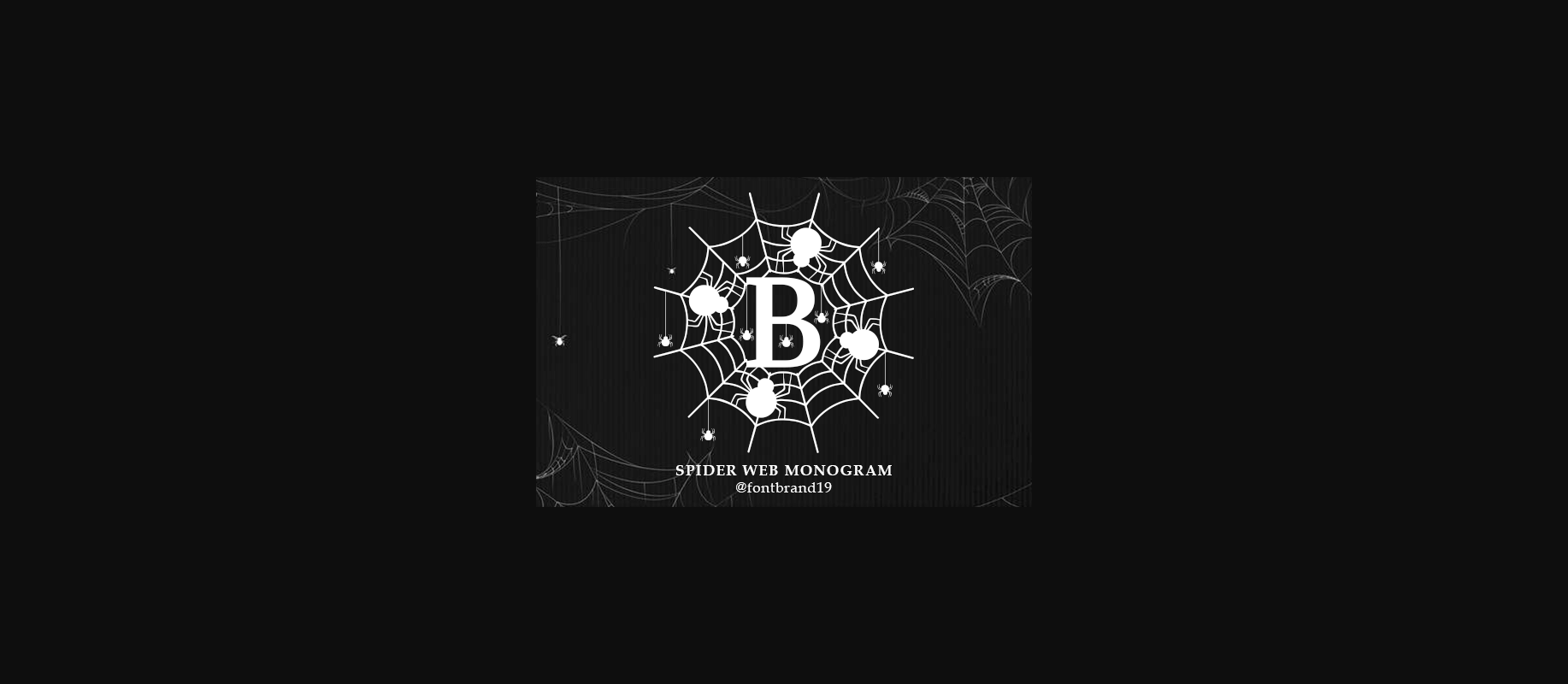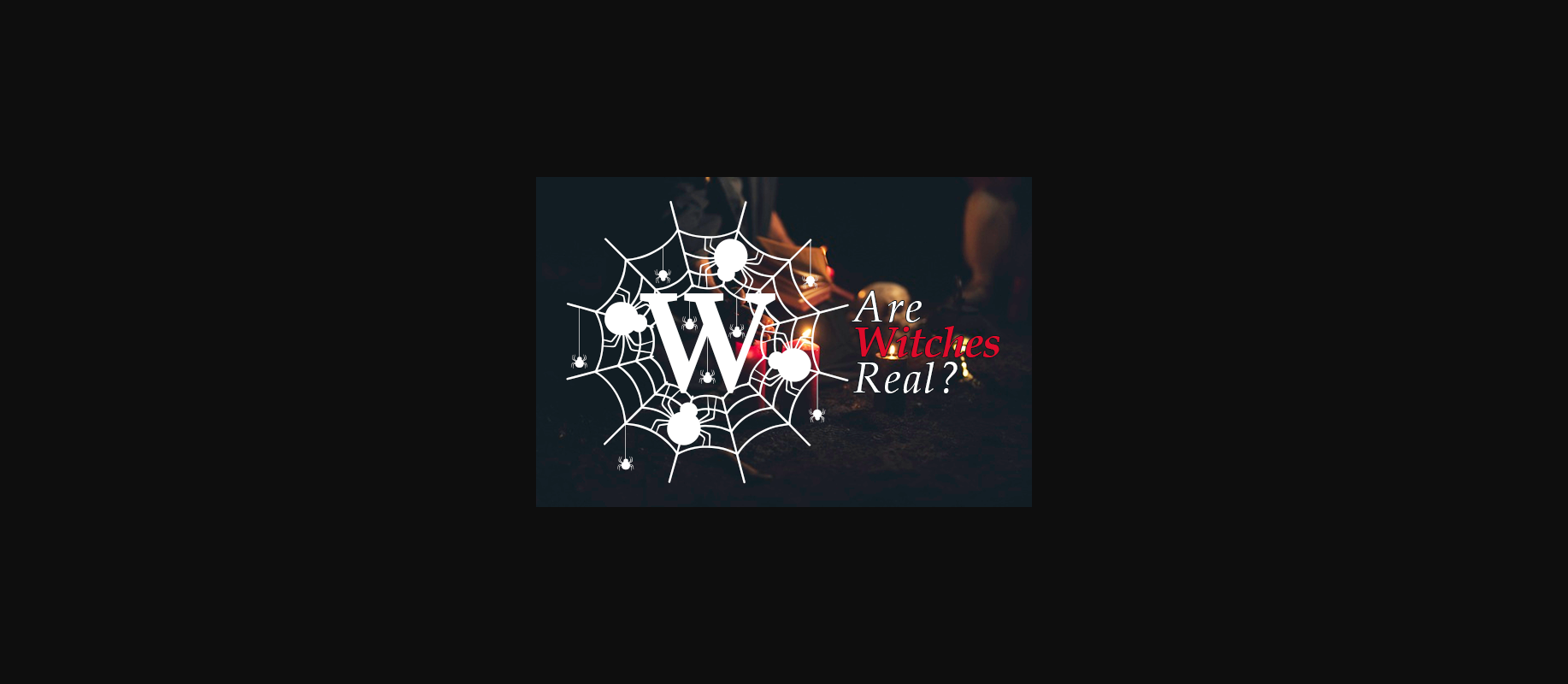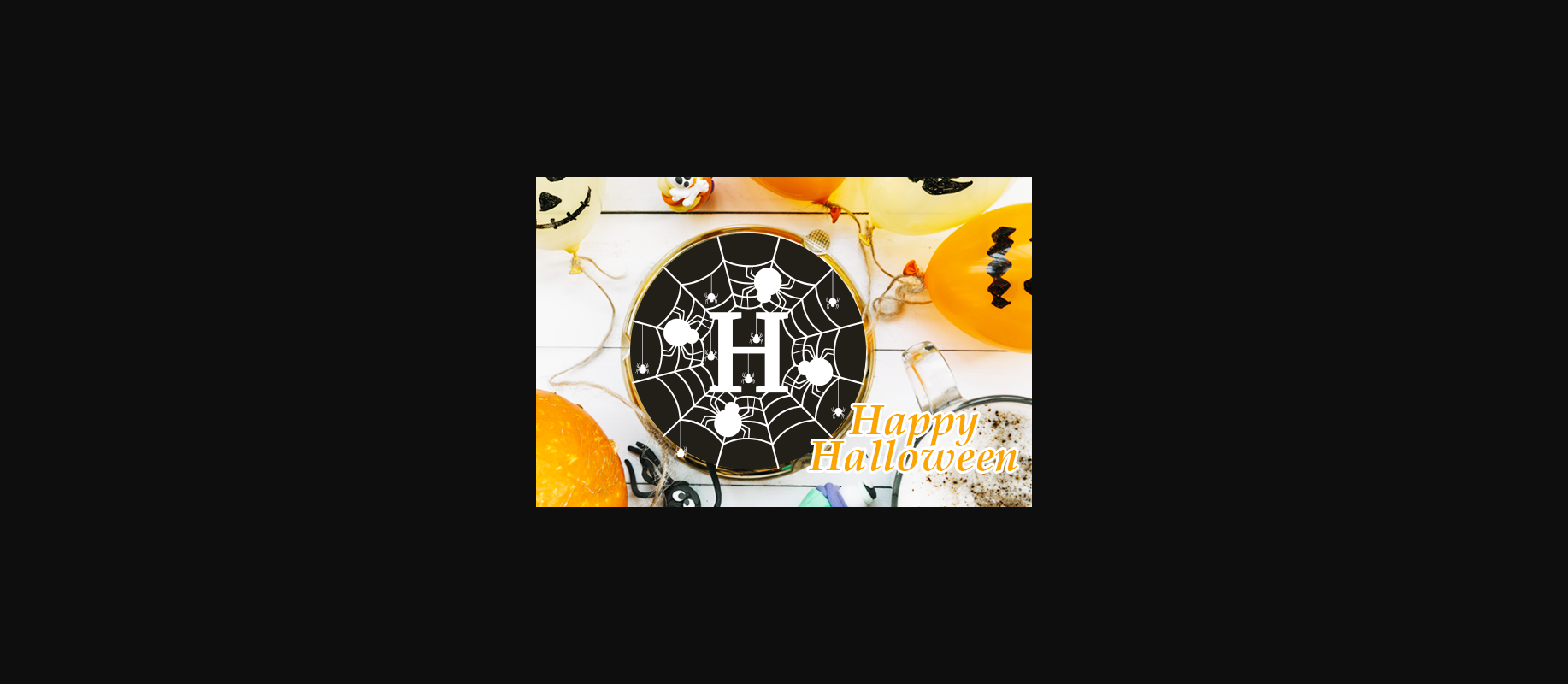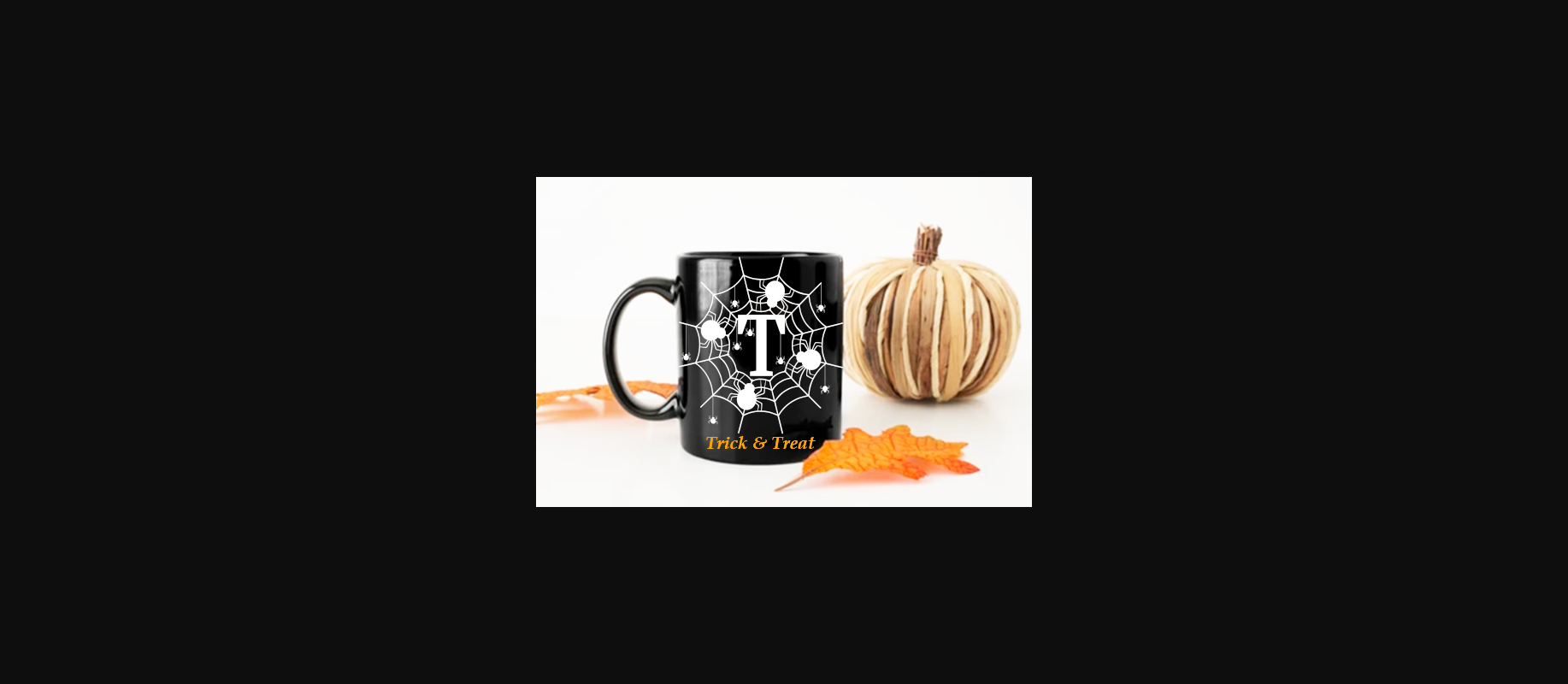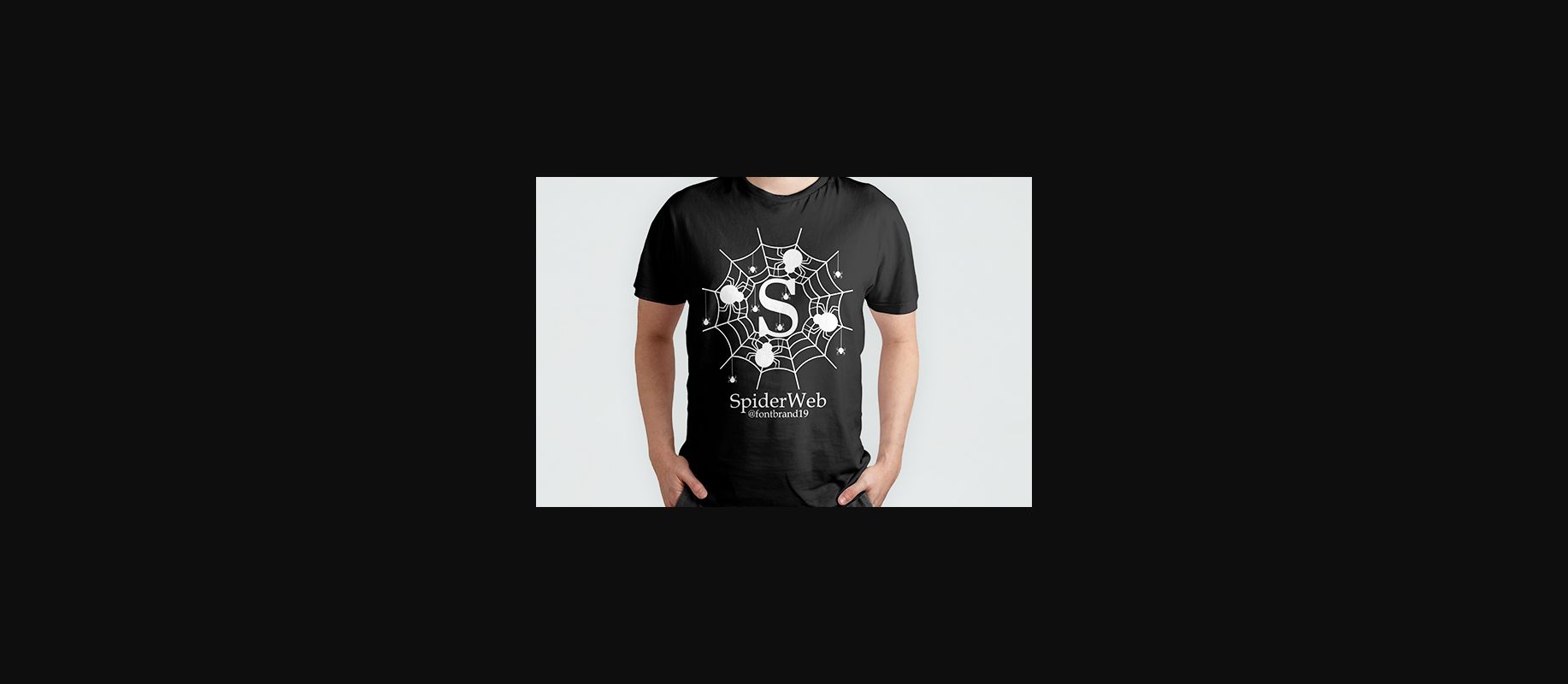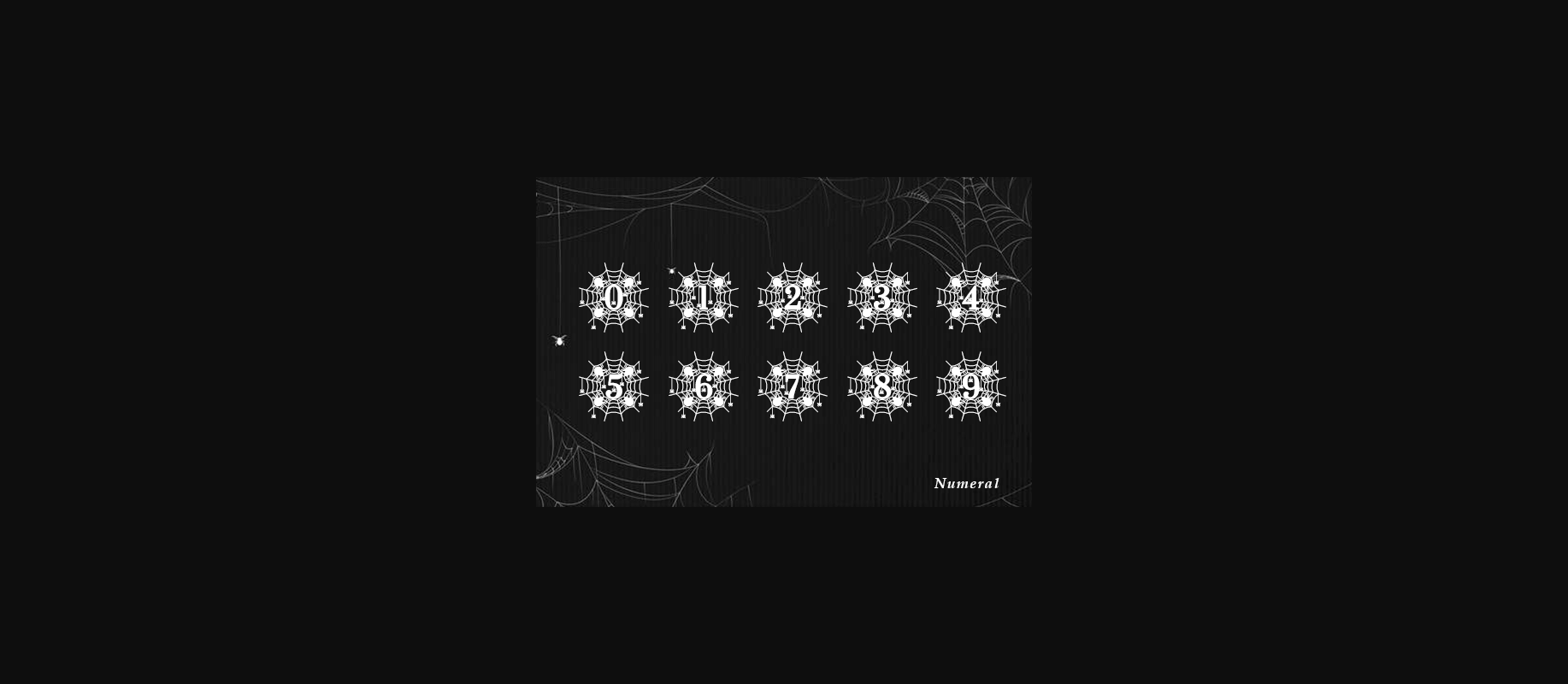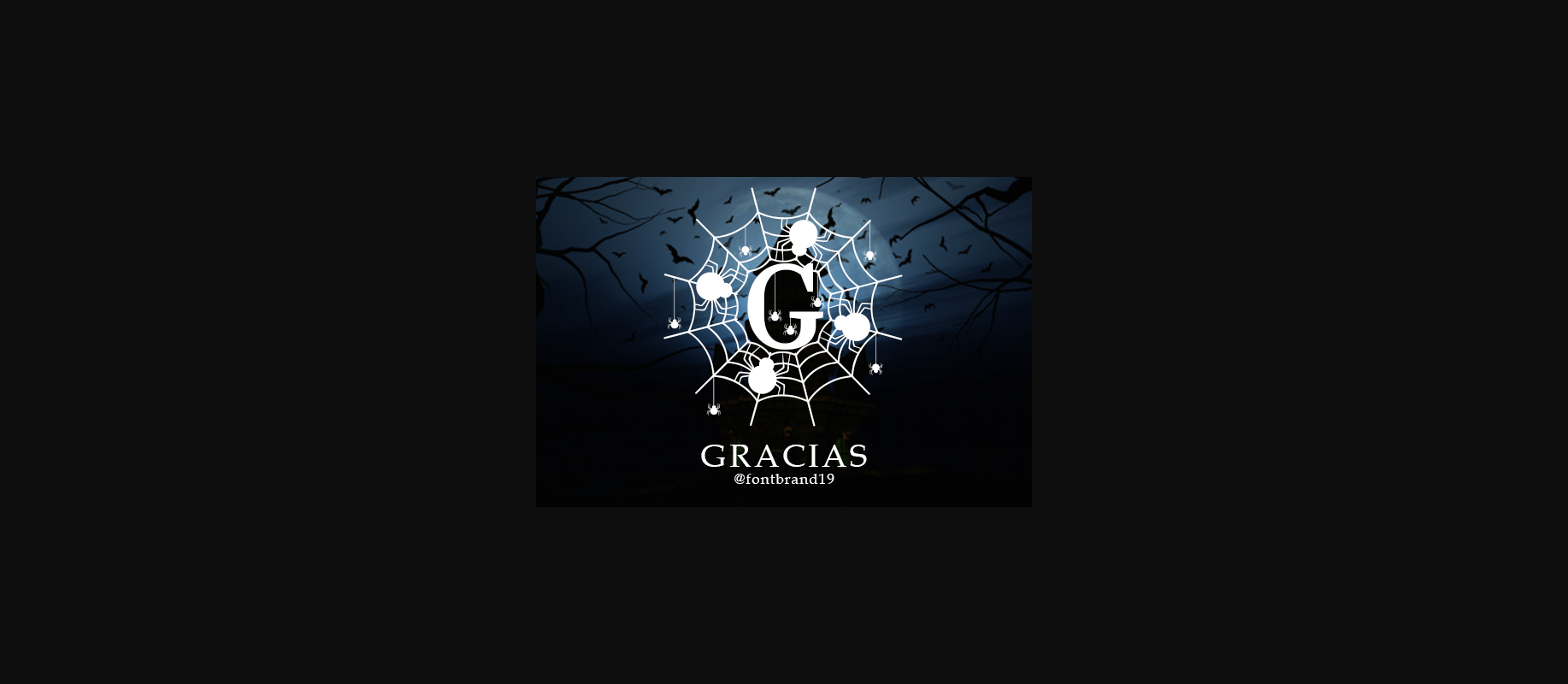
HomeDecorative FontsSpider Web Monogram Font Decorative Fonts Spider Web Monogram Font FacebookXPinterestWhatsApp 1 of 9 ... Spider Web Monogram Font Poster 2... Spider Web Monogram Font Poster 3... Spider Web Monogram Font Poster 4... Spider Web Monogram Font Poster 5... Spider Web Monogram Font Poster 6... Spider Web Monogram Font Poster 7... Spider Web Monogram Font Poster 8... Spider Web Monogram Font Poster 9... About Spider Web Monogram Font Spider Web Monogram is an incredibly unique and spooky decorative font. Add it to each of your Halloween designs and make them instantly stand out! DOWNLOAD NOW People also explored Legumes Beans Font Cendhany Font Ancient Texts Glyphs Font Black Masteng Font Hearing Font Peaches And Cream Ballita Font Rasterland Font Mila Bright Font 318 0 TagsSpider Web Monogram Font Previous articleLabel Creator FontNext articleHalloween Skull Font LEAVE A REPLY Cancel reply Comment: Please enter your comment! Name:* Please enter your name here Email:* You have entered an incorrect email address! Please enter your email address here Website: Save my name, email, and website in this browser for the next time I comment. Personal Use Free Frozdotre Personal Use Free Read more about this font Gdynia Personal Use Free Read more about this font Kilsonburg Personal Use Free Read more about this font Letter Clips Personal Use Free Read more about this font BLOG Modern Sans-Serif Fonts That Brands Love in 2025 In 2025, modern sans-serif fonts remain a top choice for brands looking to project clarity, professionalism, and... Free vs Paid Fonts: Why Investing in Premium Fonts Is Worth It Best Fonts for YouTube Videos: Make Your Thumbnails Stand Out Elegant Wedding Invitation Fonts – Handwritten & Script Fonts